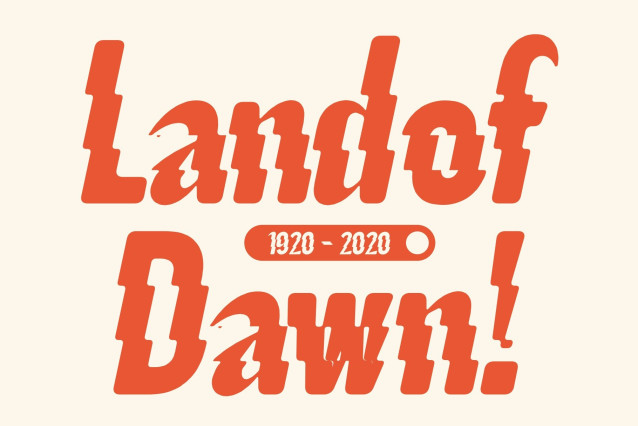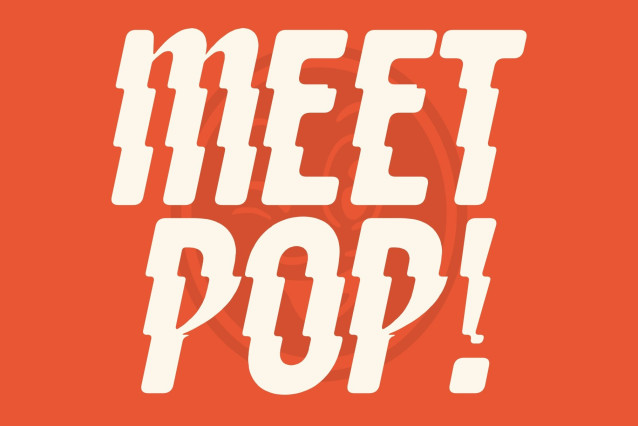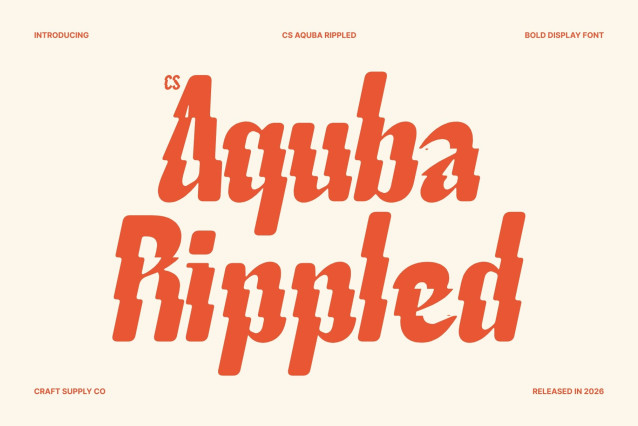
CS Aquba Rippled – Modern Sans Serif Display Font: Where Bold Energy Meets Liquid Wave Motion
Bold Contemporary Forms with Fluid Visual Rhythm
This is a modern sans serif display font designed with bold contemporary forms and energetic visual flow. Its strong structure and dynamic proportions create a lively modern appearance filled with movement, confidence, and expressive character. Every letter feels bold and immersive, making the font perfect for eye-catching display compositions and energetic creative projects.
Rippled Effect with Liquid Wave Distortion
This font creates the illusion of typography reflected on water or distorted by flowing waves. The fluid motion-inspired detailing introduces a sense of rhythm, motion, and organic energy, giving the font a surreal and visually engaging atmosphere. This liquid distortion effect adds depth and playfulness while maintaining readability and strong visual impact.